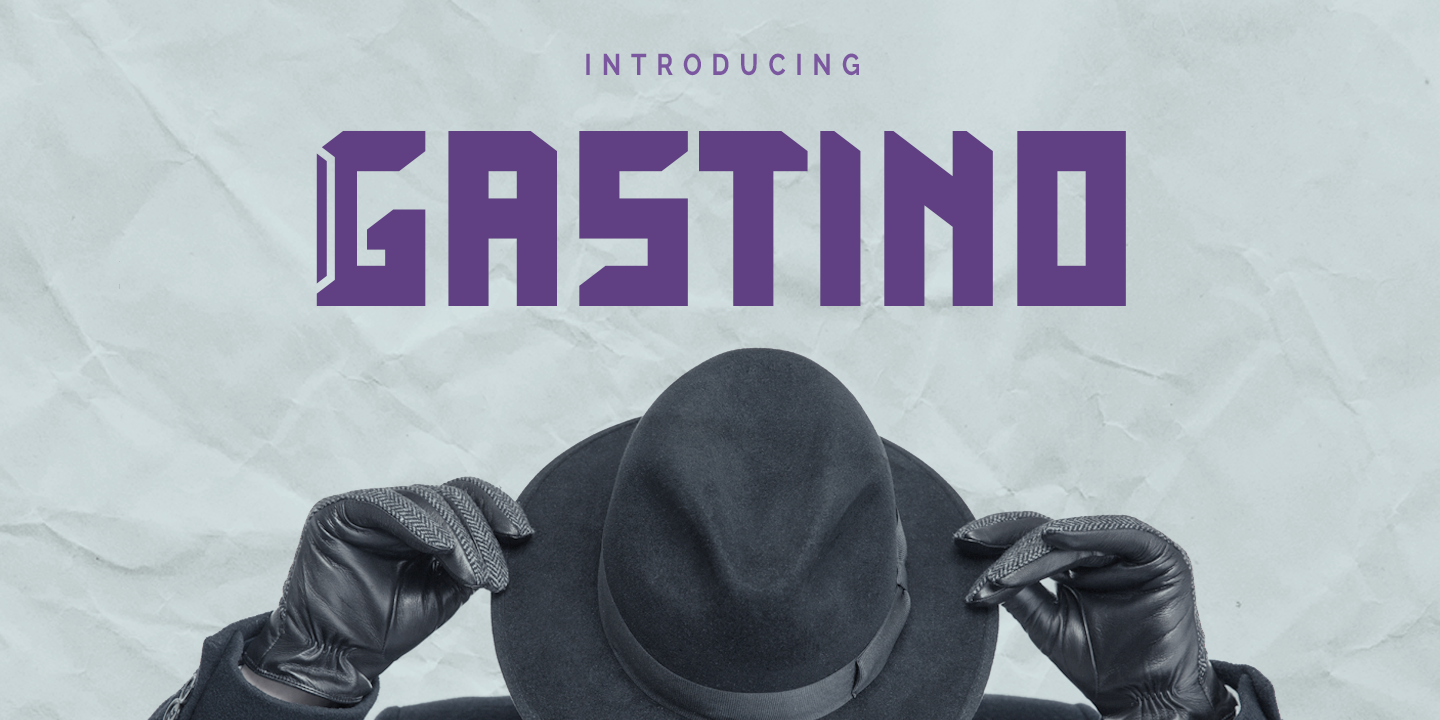
Gastino Font is perfect for restaurant menus, food packaging, culinary websites, cookbook covers, food blogs, café signage, bakery branding, and gourmet food advertisements. This versatile typeface excels in hospitality industry applications, fine dining establishments, and any project requiring a sophisticated culinary aesthetic.
What makes Gastino Font exciting is its perfect blend of elegance and readability that captures the essence of fine dining and culinary artistry. The font features carefully crafted letterforms that evoke warmth and sophistication, making it ideal for creating memorable brand experiences in the food and beverage industry. Its distinctive character shapes and balanced proportions ensure excellent legibility across various media formats.
Gastino Font family includes multiple weights and styles: Regular, Bold, Light, Medium, Italic variations, and condensed versions. Each family member maintains the distinctive character while offering flexibility for different design applications and hierarchical typography needs.
Whether you're designing a high-end restaurant menu or creating food packaging that stands out on shelves, Gastino Font Free Download provides the perfect typography solution. This font transforms ordinary text into appetizing visual elements that communicate quality and taste. Professional designers and food industry marketers choose this typeface for its ability to convey premium dining experiences and culinary excellence through thoughtfully designed letterforms.